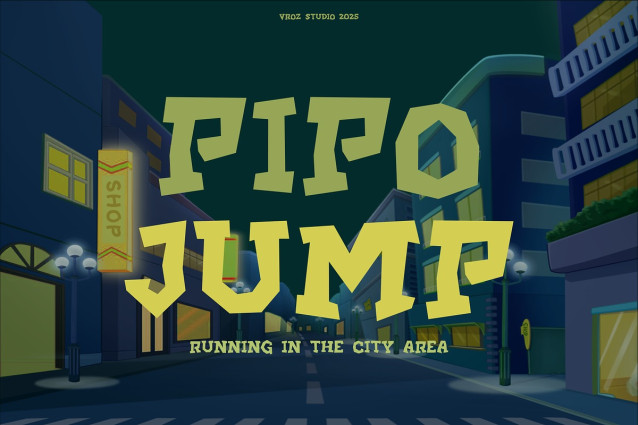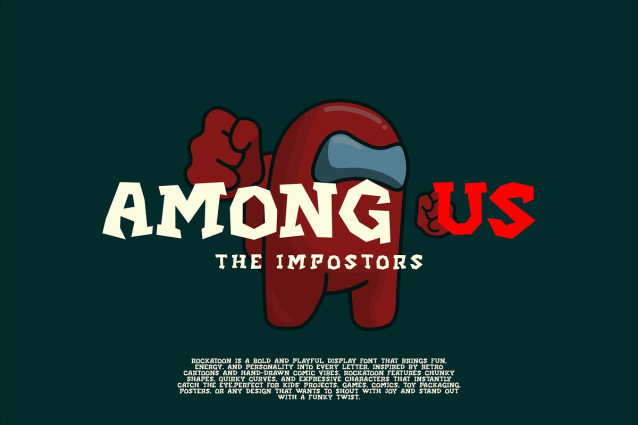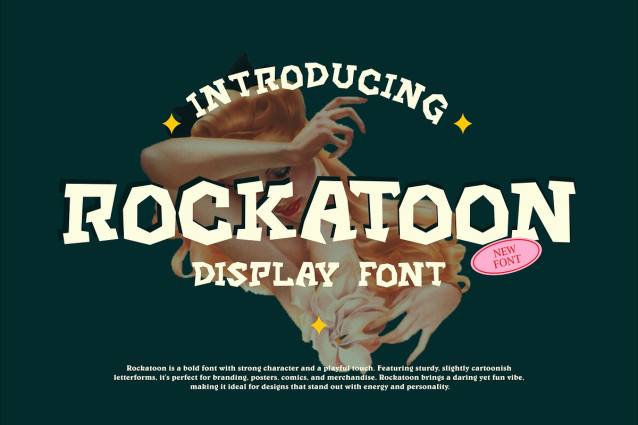
Rockatoon Display Font
Rockatoon Display Font is a fun and energetic display font with a bold, cartoon-inspired personality. Designed to bring smiles and a touch of mischief, this font is perfect for playful projects that need loud, expressive lettering with a creative twist.
With chunky shapes, bouncy forms, and dynamic character, Rockatoon is ideal for kids’ designs, comics, games, posters, YouTube titles, merchandise, and branding that dares to stand out.
Whether you’re crafting fun packaging, animated intros, or eye-catching logos, Rockatoon adds instant charm and humor to any layout.